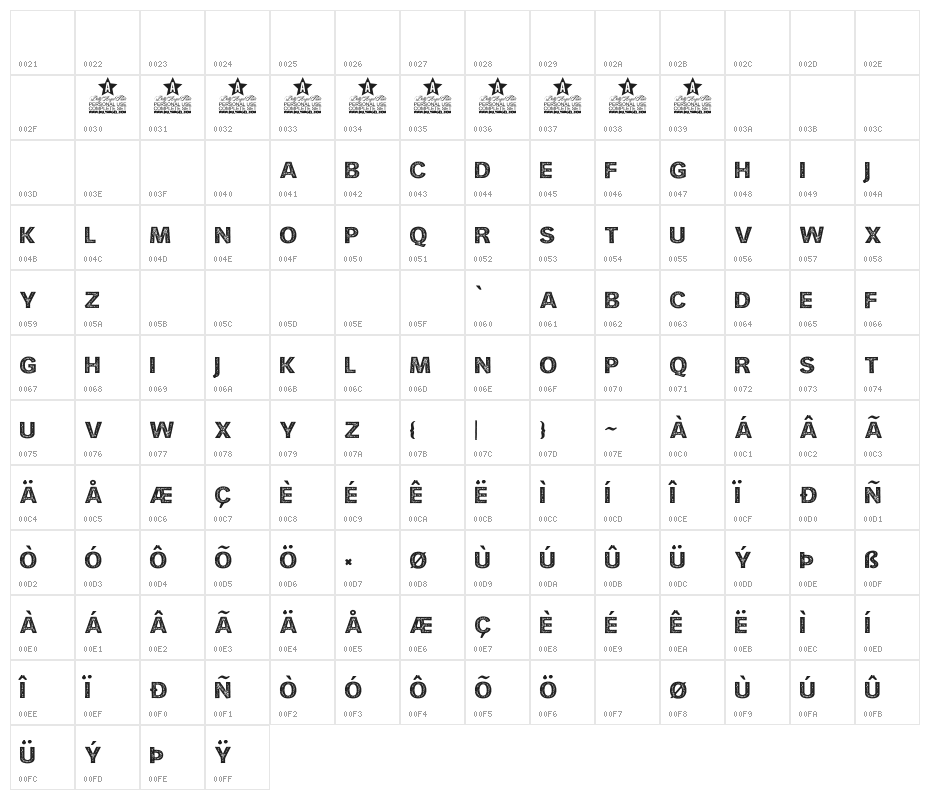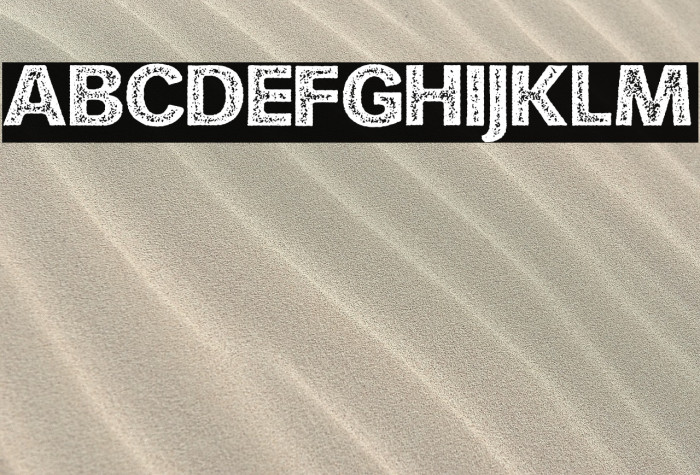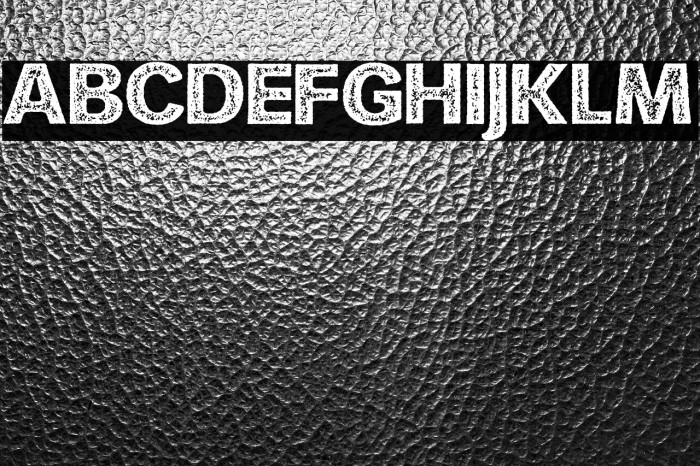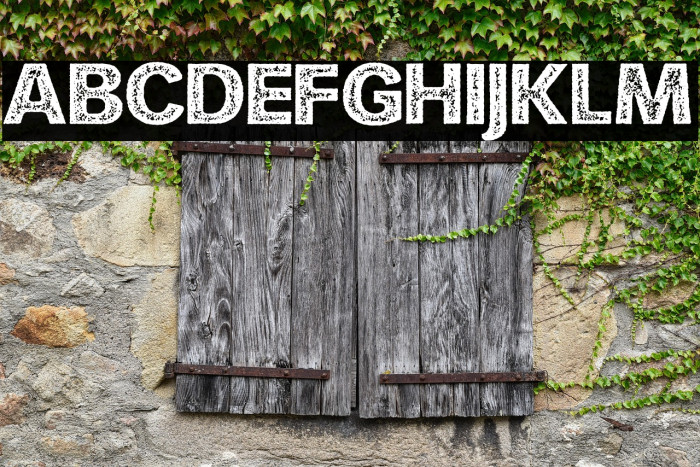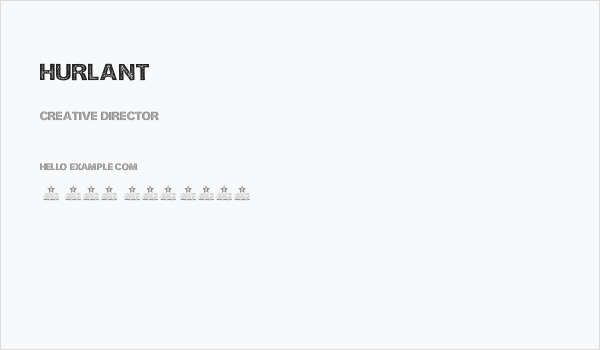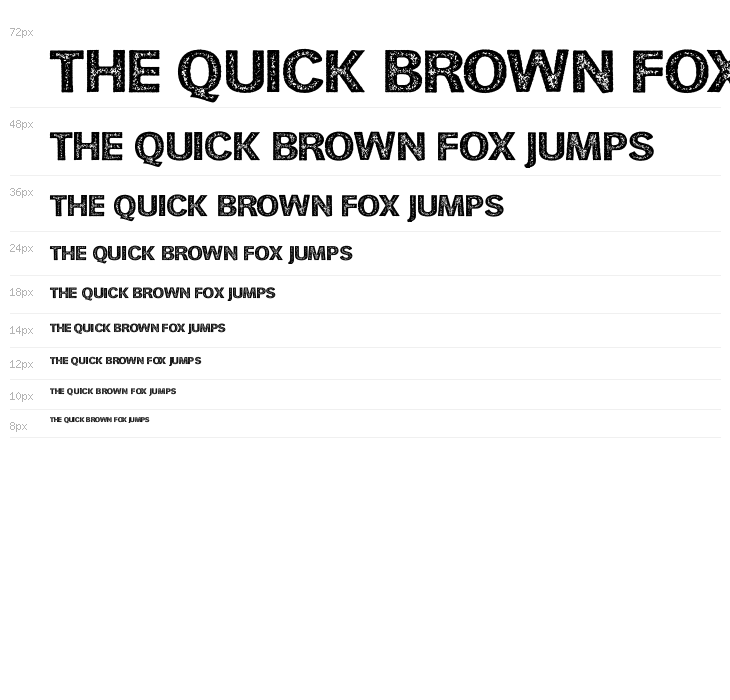
HURLANT Font
HURLANT Description
This font features a bold and distressed style, characterized by a textured appearance that gives it a rugged and vintage feel. The uppercase letters are prominently displayed, with a consistent thickness that enhances readability while maintaining a unique, worn-out look. The texture within each character adds depth and visual interest, making it suitable for designs that require a strong, impactful presence. Its bold nature ensures that it stands out in any composition, while the distressed details provide a touch of nostalgia and character.
| Proposed Projects | Ideal for posters, album covers, branding projects, and any design requiring a bold, vintage aesthetic. |